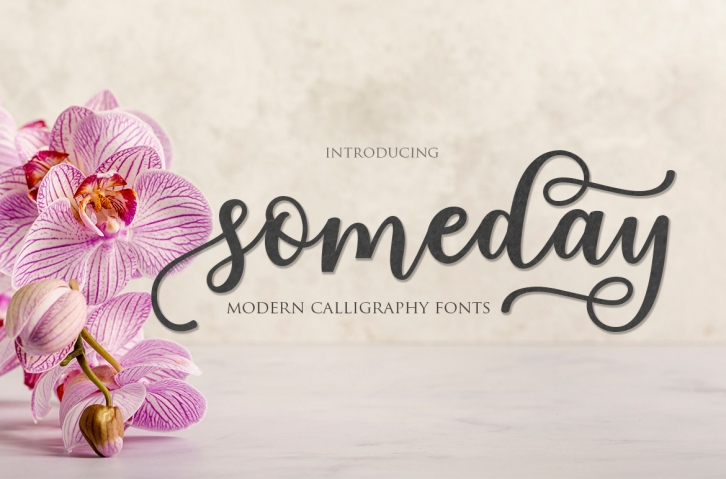
someday script is a gorgeous font that was realeased on September 23, 2019. The font can be used in many style contexts and design environments. Perfect for invitations, magazines, websites, logos, and more! It was designed by MrLetters and the file size is 1.21 MB. Thanks for checking out this font!